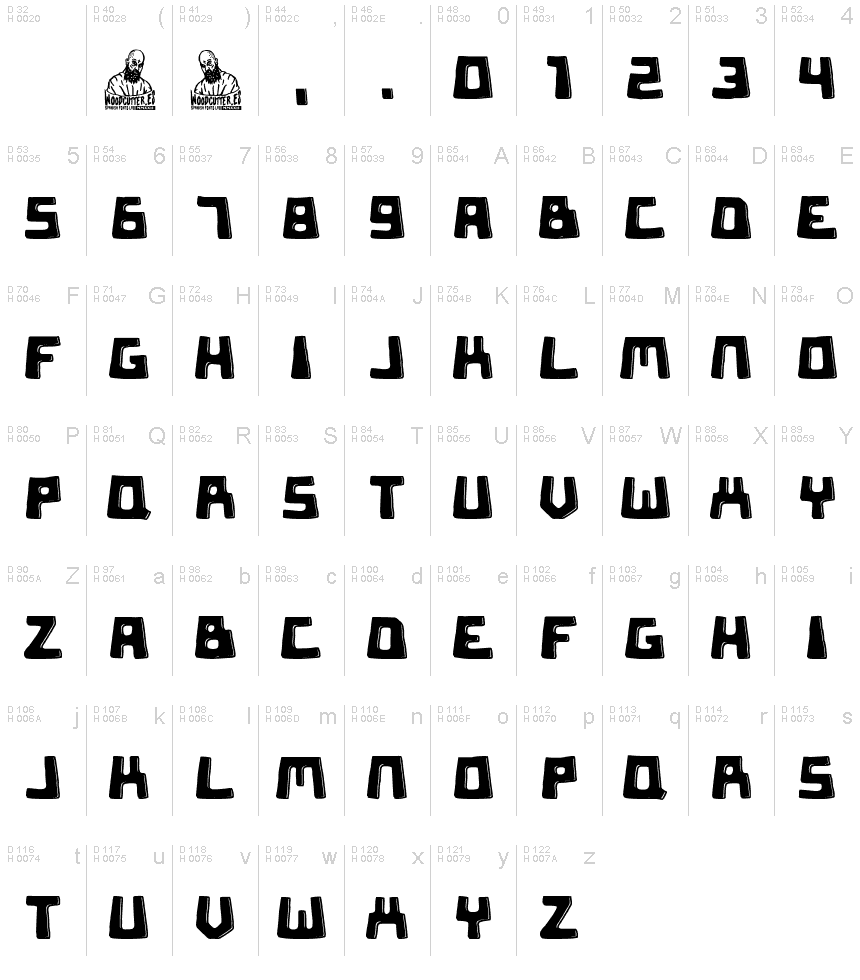
Red Square
Looking for a fun and playful way to grab attention? Look no further than Red Square, the bold and expanded display font designed by Woodcutter! With its cartoon style, this font is perfect for projects that need a touch of whimsy - think children's books, party invitations, or even quirky logos. Plus, its weighty boldness ensures that your message won't be missed. So why settle for boring fonts when you can add some personality with Red Square? Get creative and let your imagination run wild!
Red Square.